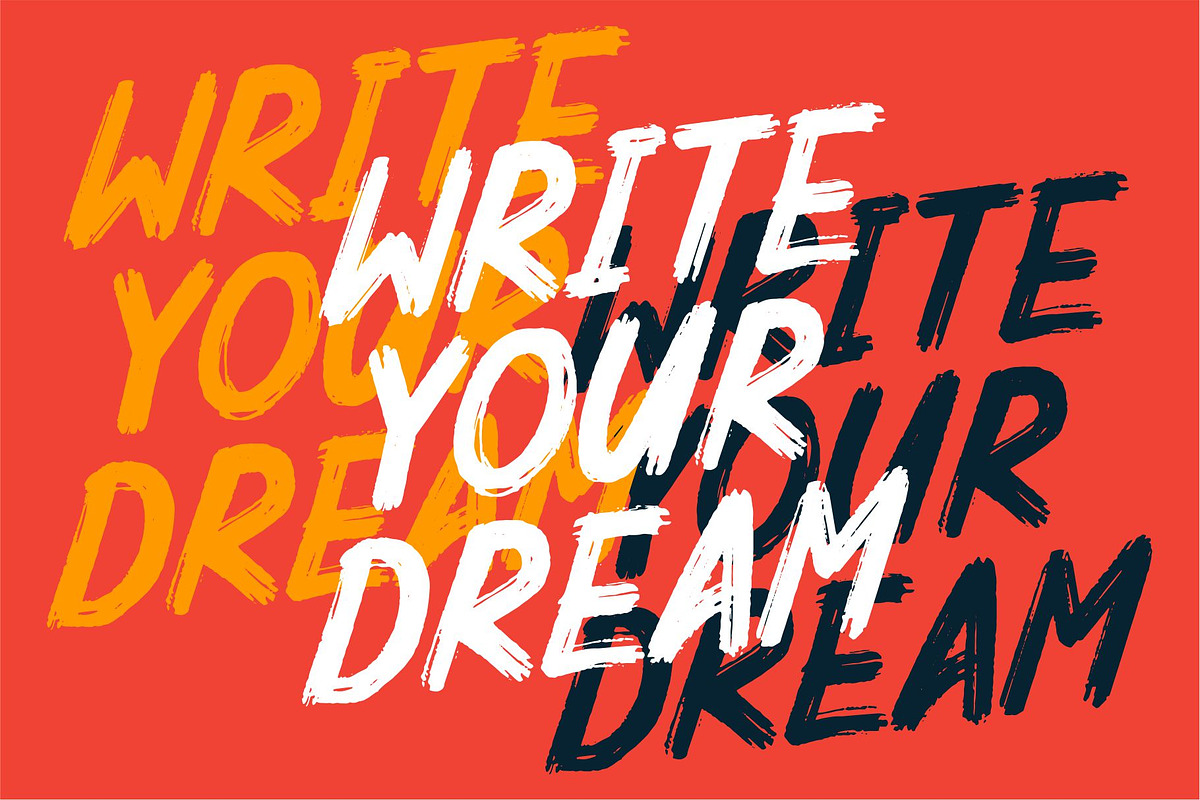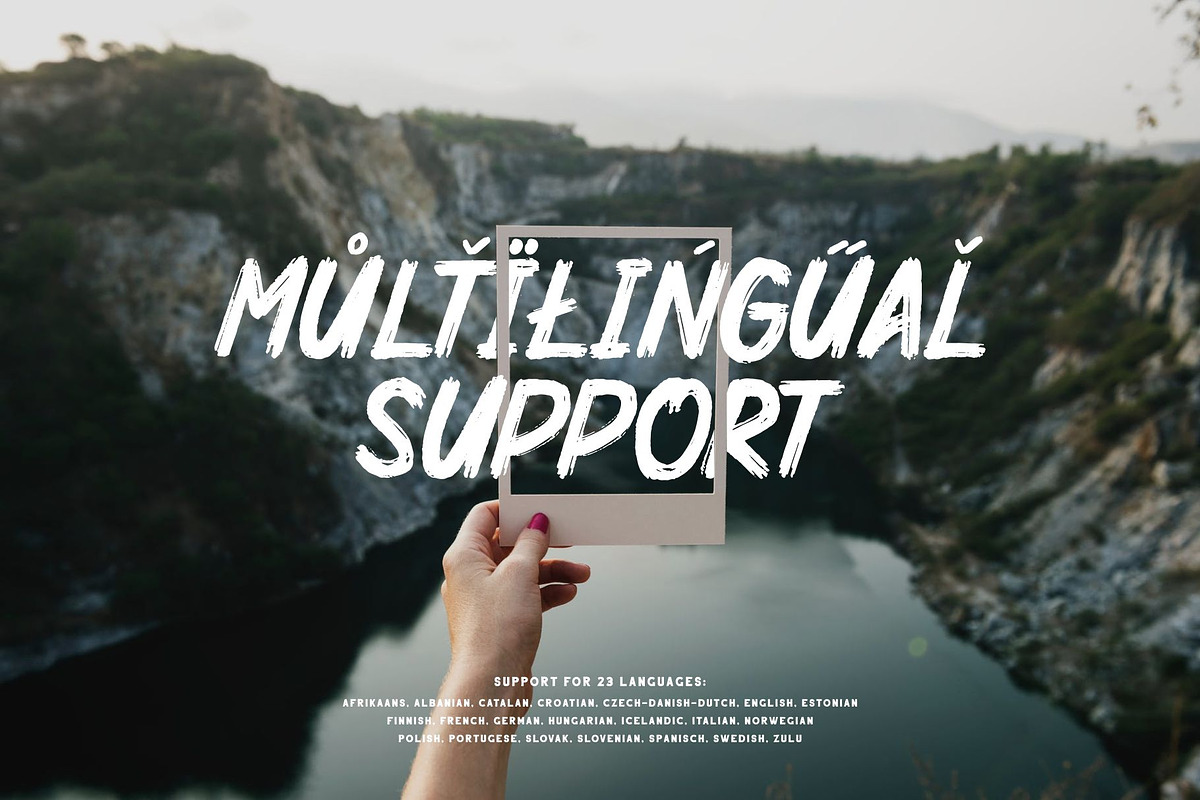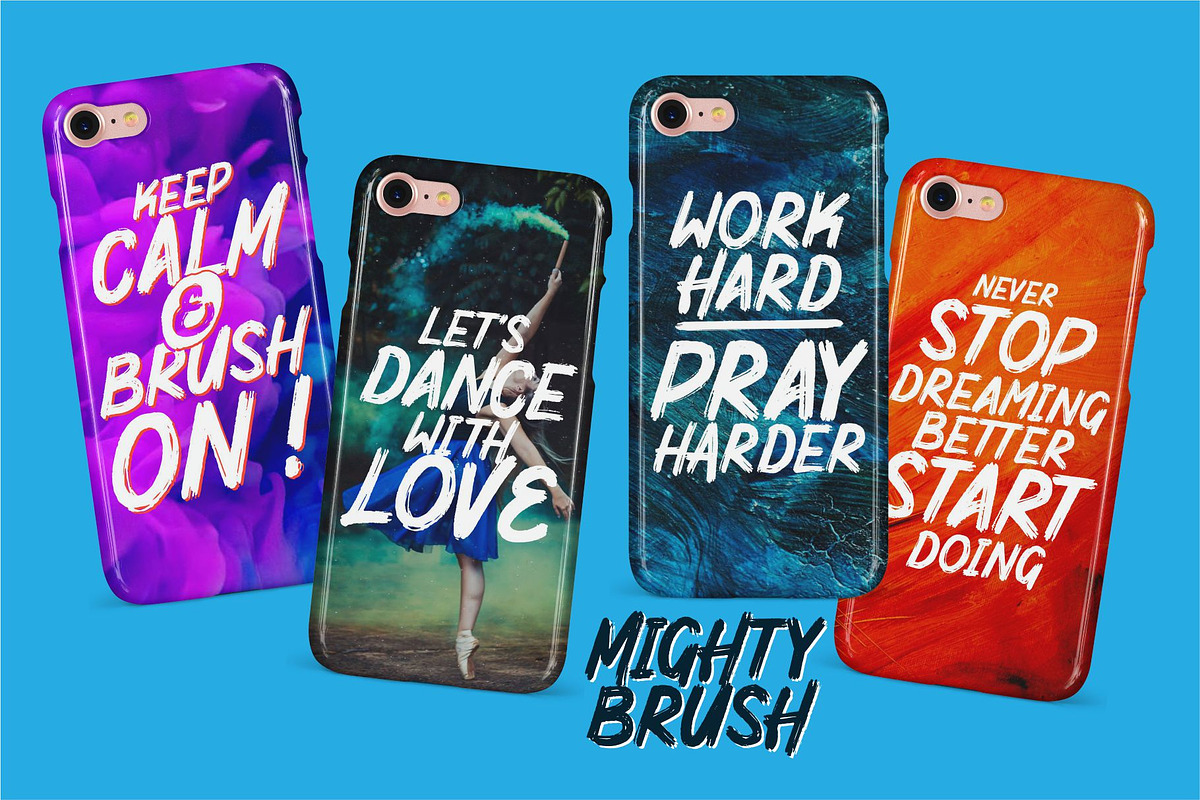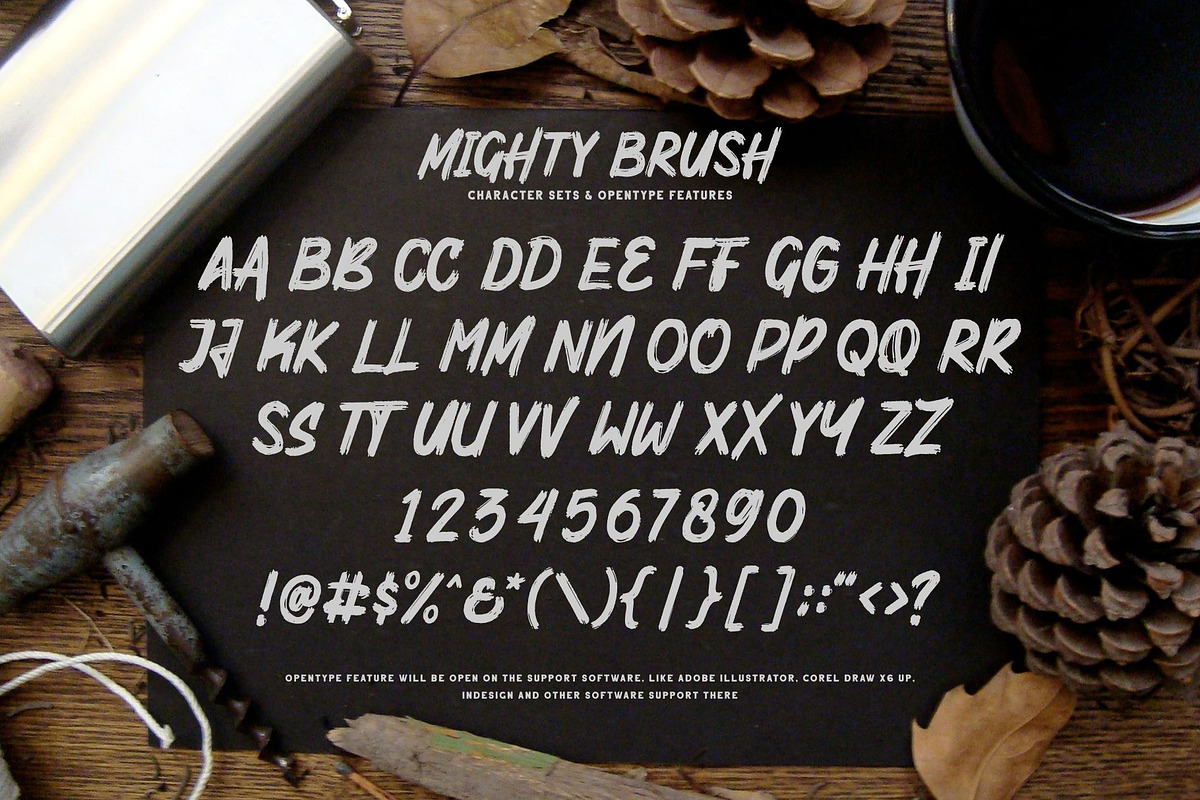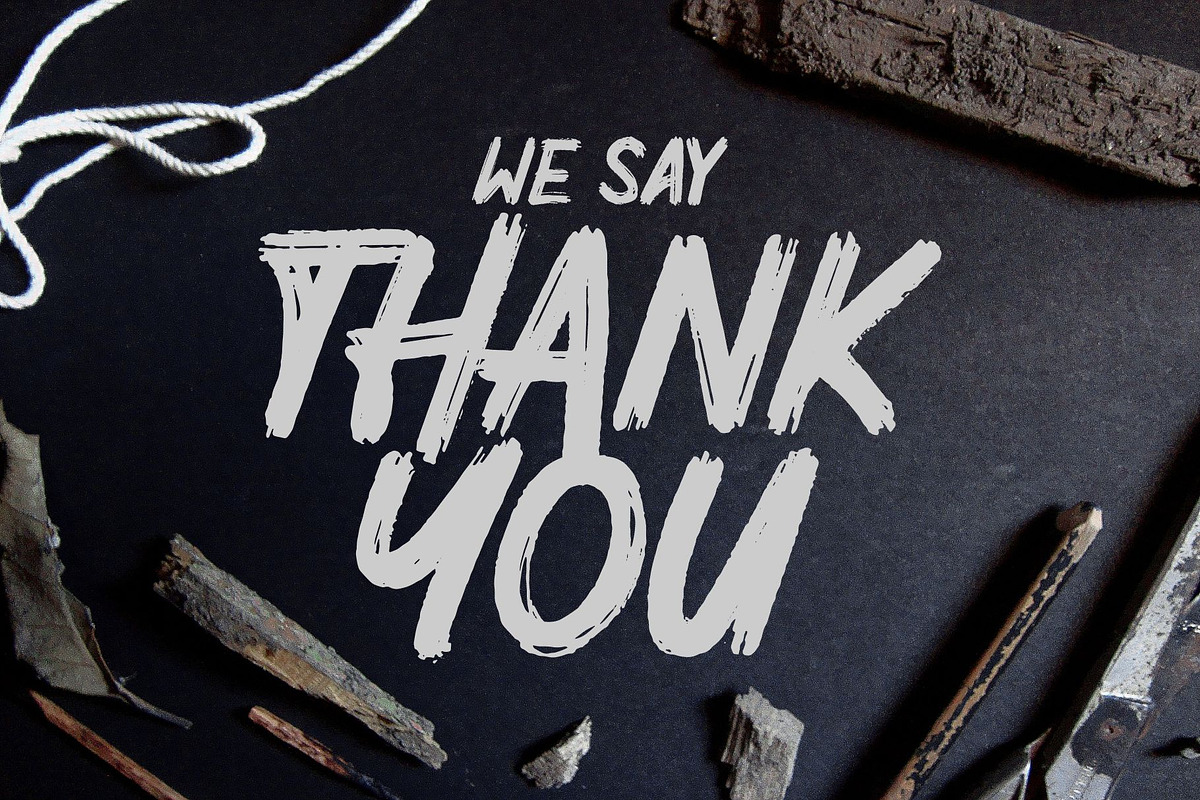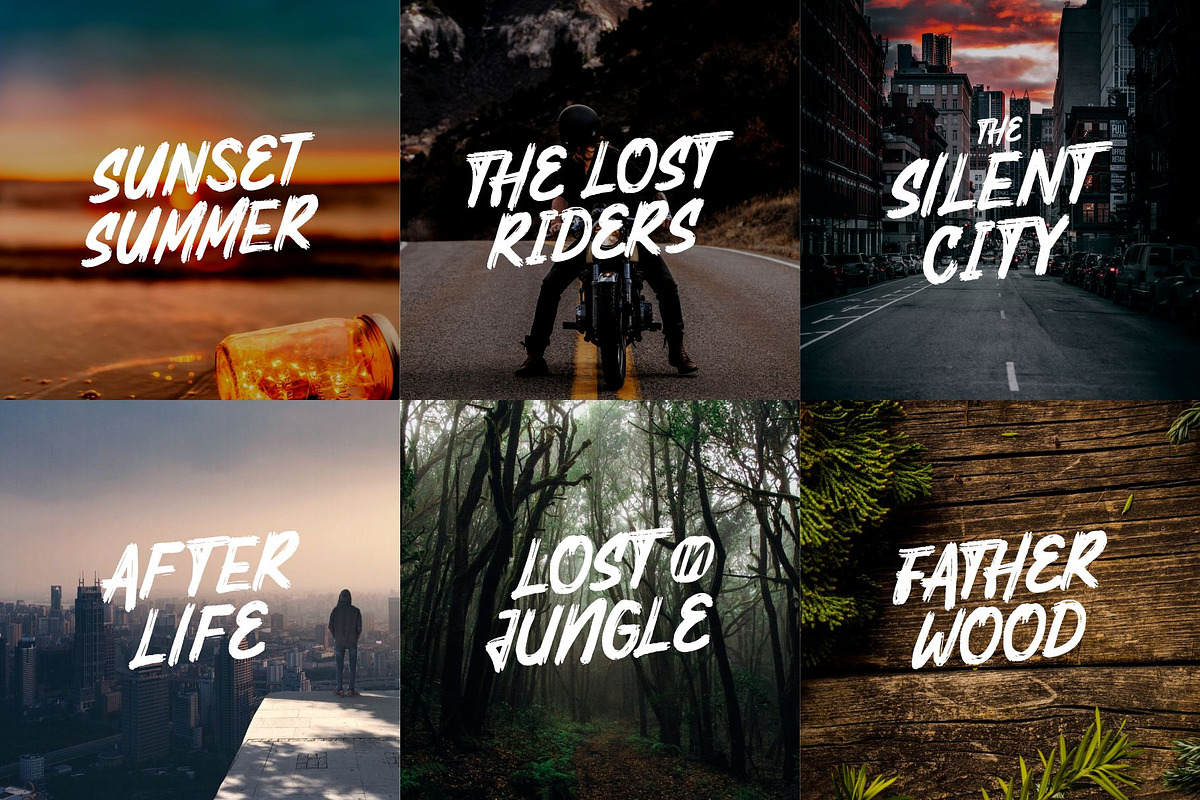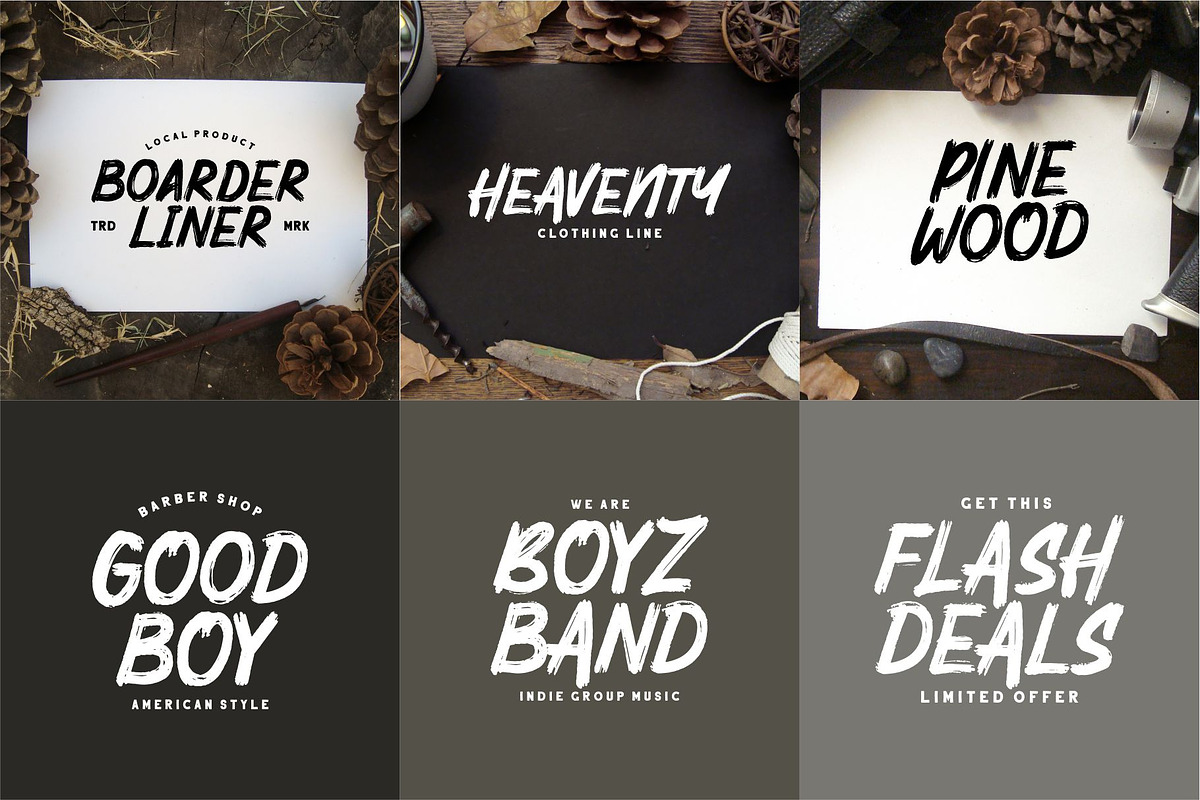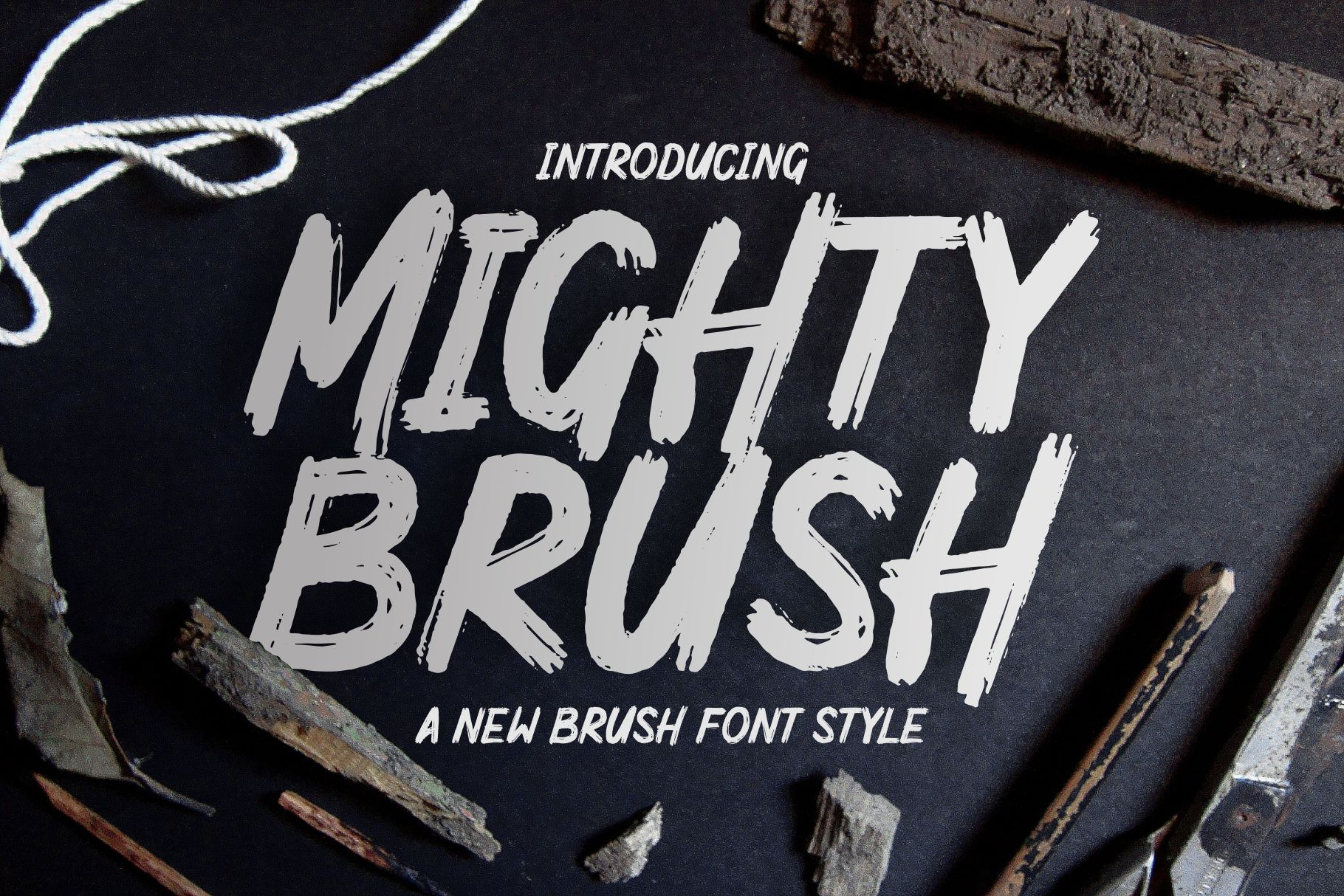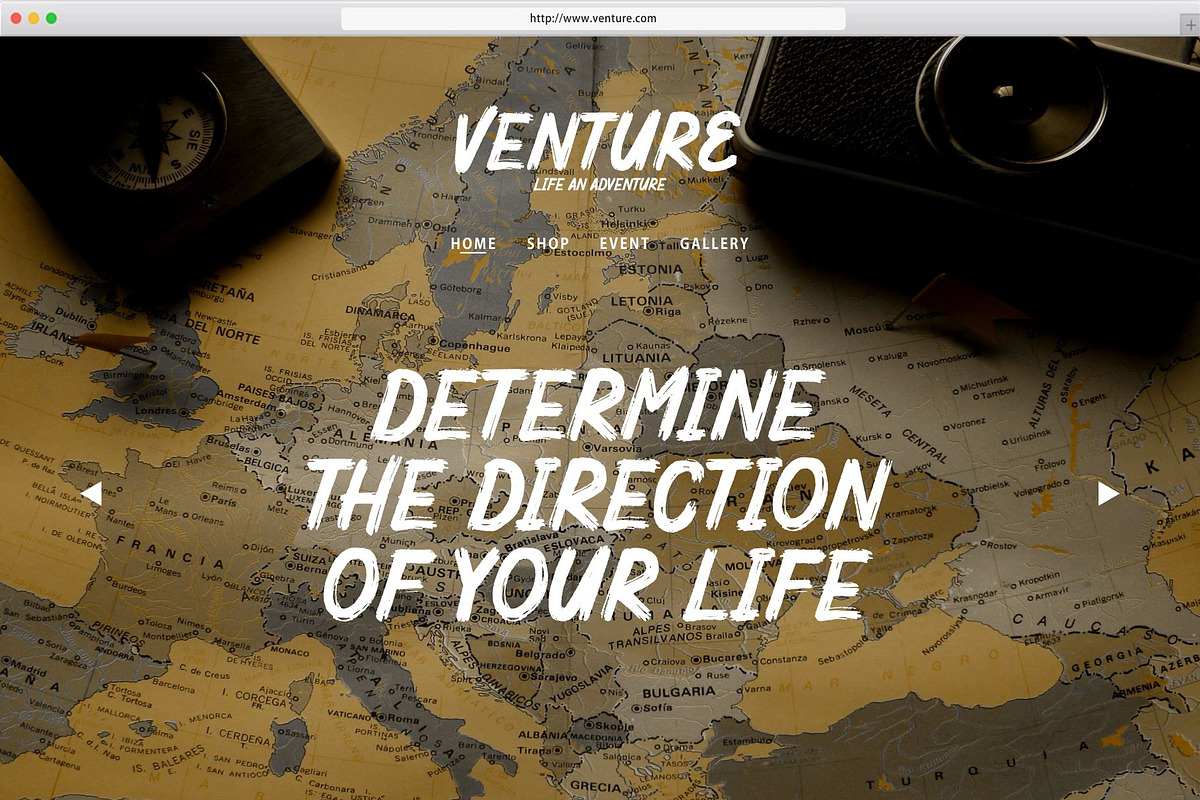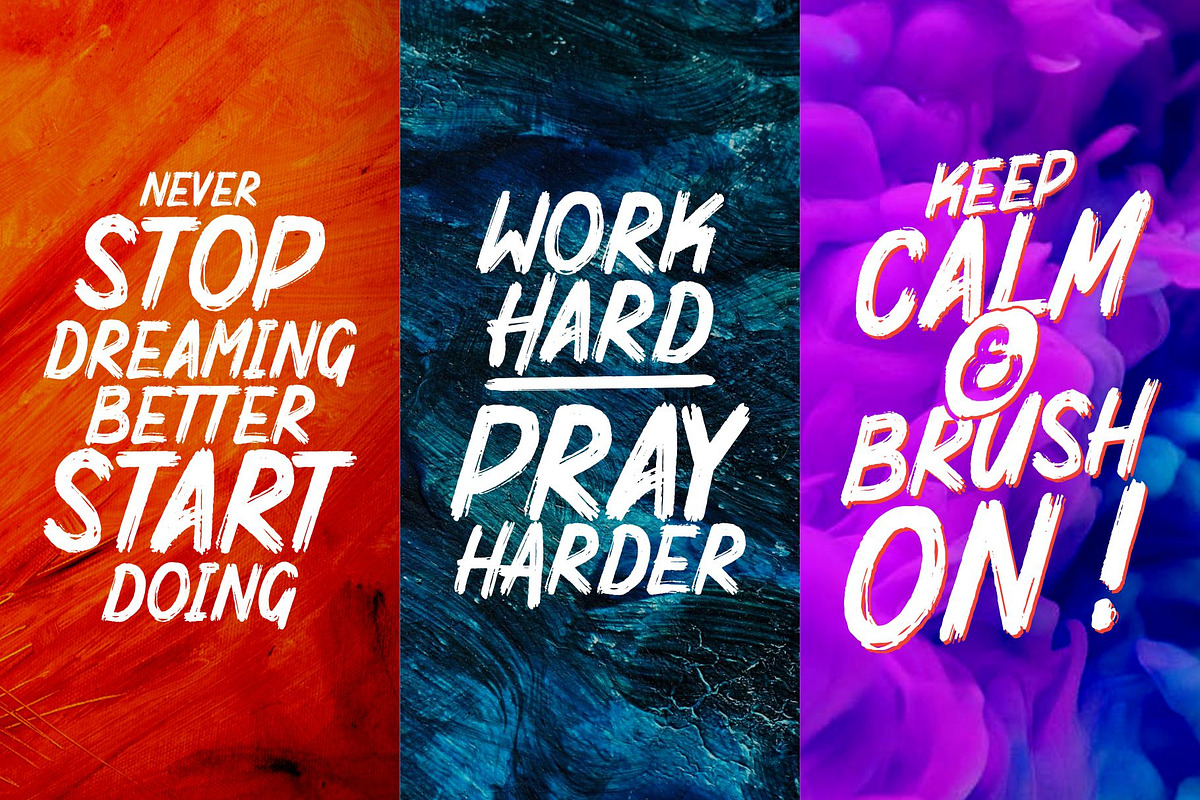
MIGHTY BRUSH Fonts
Introducing MIGHTY BRUSH FONT
MIGHTY BRUSH FONT combines attractive curves with a fresh urban edge; delivering a stylish script which is guaranteed to add an eye-catching appeal to your logo designs, brand imagery, handwritten quotes, product packaging, merchandise, social media post, or website font.
- Versatile for branding, headline, or printing product
- Detailed dry brush